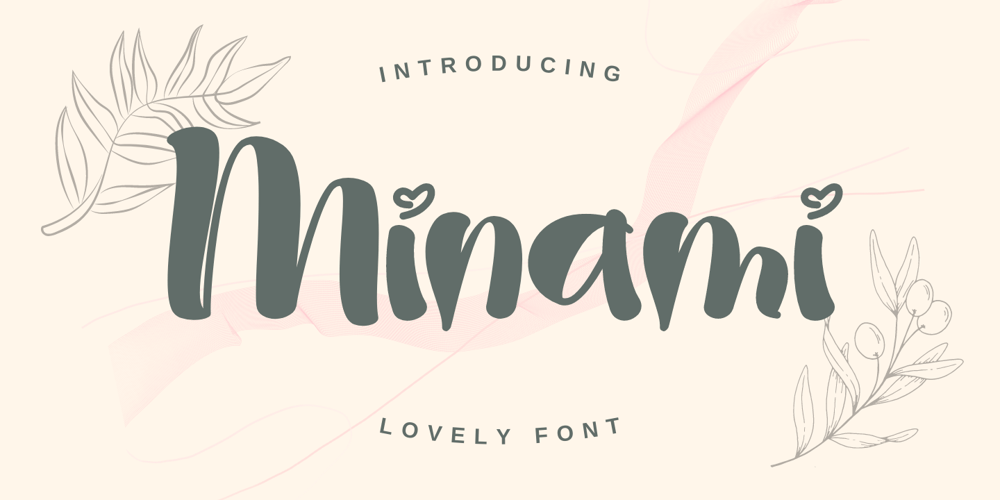
Minami Font Family was designed by Stephanus Prabowo and published by Andrey Font Design. Minami contains 2 styles and family package options. Minami is a trendy handwritten font featuring a neat style. This gentle font will look gorgeous on various design ideas. It will add a joyful and romantic touch to each of your projects!